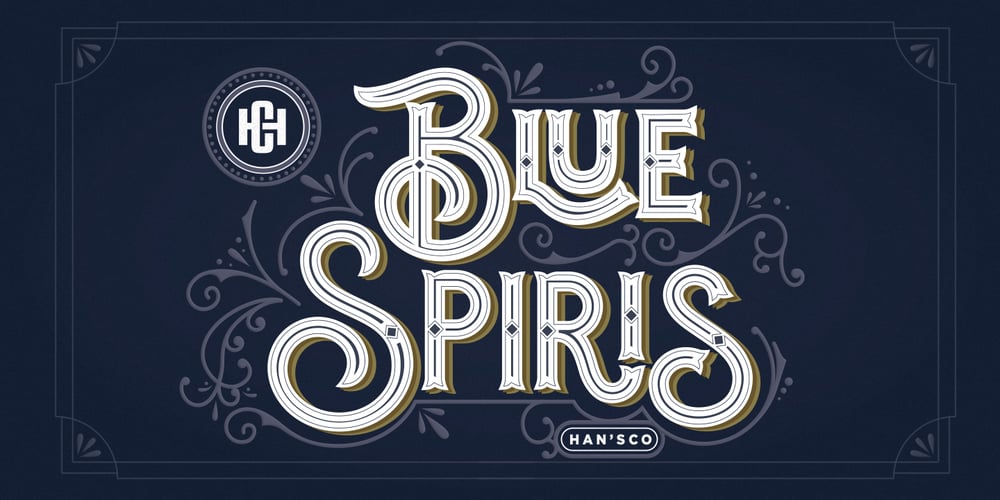
Blue Spiris
Blue Spiris font
Blue Spiris Font Family was designed by Burhan Afif and published by HansCo. Blue Spiris contains 3 styles and family package options. Blue Spiris is a Vintage typeface font. This collection of font is perfect for everything your project with vintage, retro, wild or organic style. It was made with the intention of being used for product Logo like a pomade, coffe, barber or packaging label. It’s great also for branding, logo designs, lettering, logotype, craft, posters and much more. Comes with a full uppercase, lowercase, numbers and punctuation + standard multilingual support. We recommend using Adobe Illustrator or Photoshop.Enjoy!